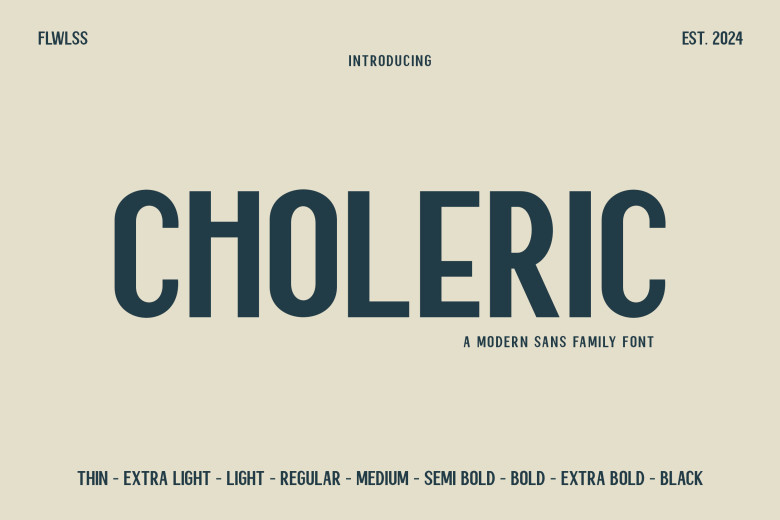
Choleric Font
Choleric is an expansive modern sans serif font family featuring multiple weights spanning from black to thin styles that include ultra-light regular, light semi-bold, bold black, and extra bold weights. Each Choleric font style boasts its own distinct look while still remaining balanced characters; Choleric emphasizes clarity and accuracy across its wide weight range by emphasizing clarity of form with clean yet simplistic styles that emphasize clarity and accuracy across its various weight ranges.
Sharp lines and proportional angles make it an easy font to read and visually appealing, making it suitable for projects ranging from titles and body text, to modern graphic designs requiring eye-catching yet modern graphics.
Choleric Sans Serif Font